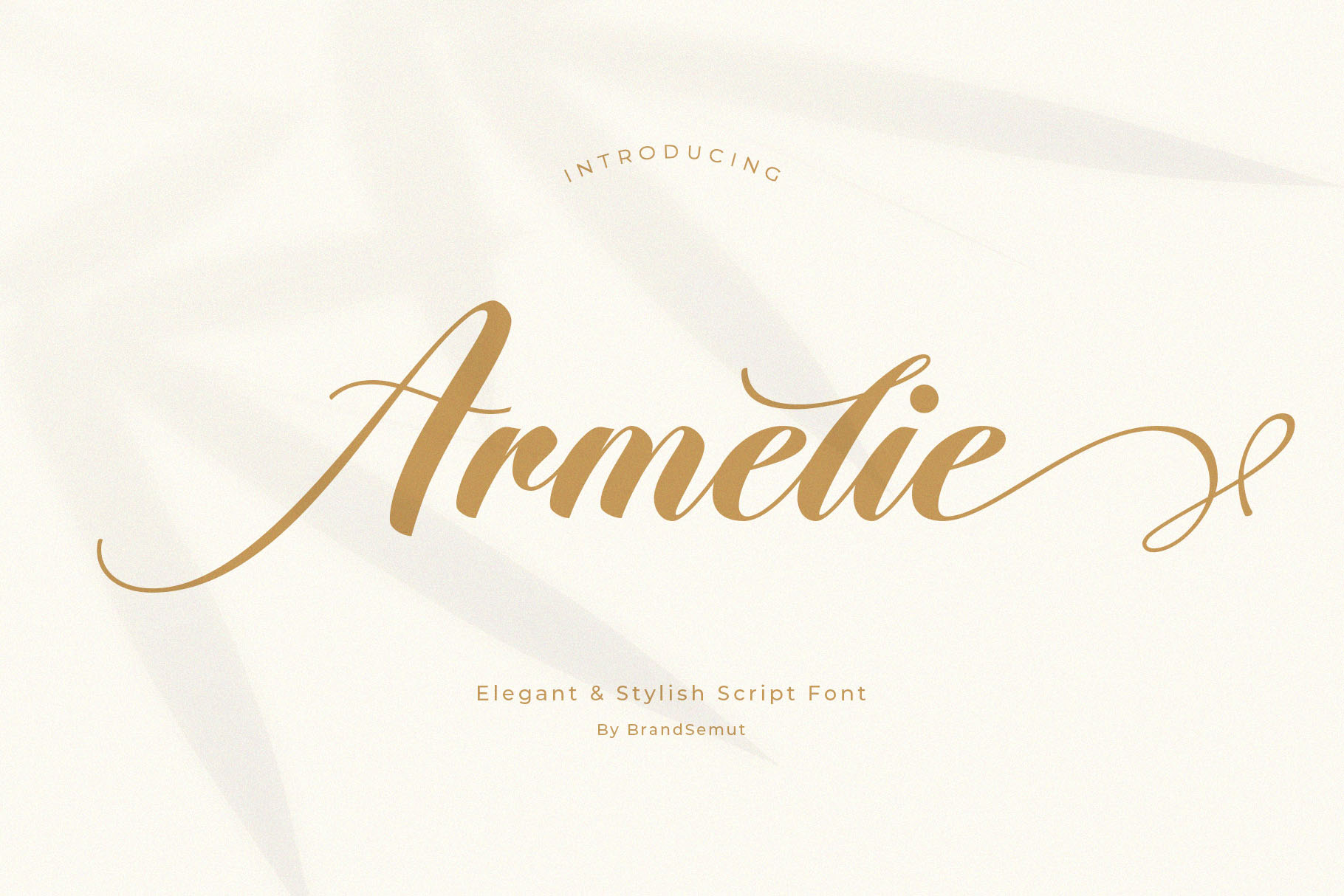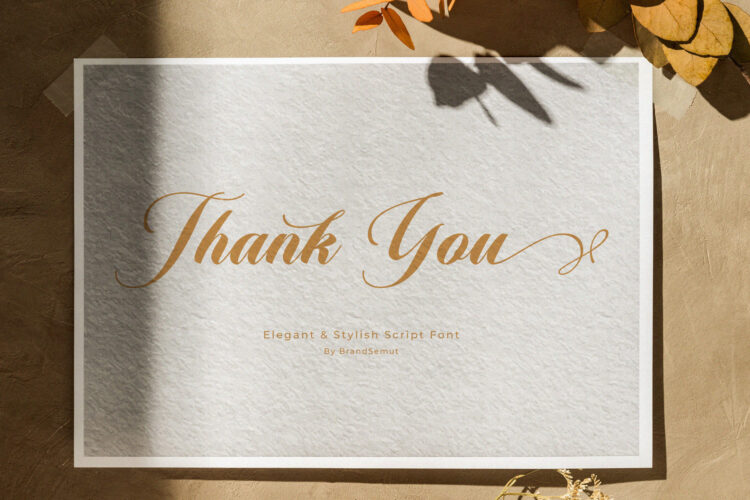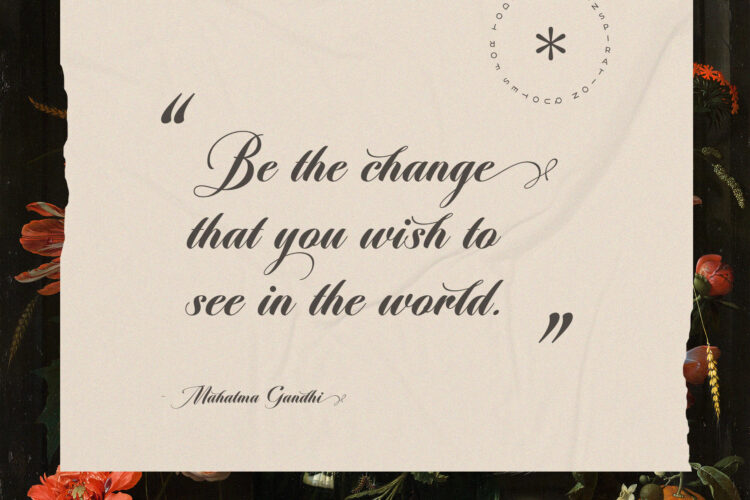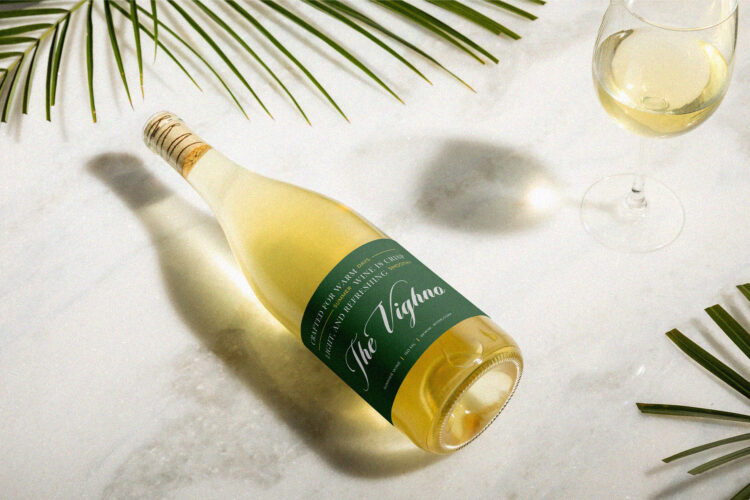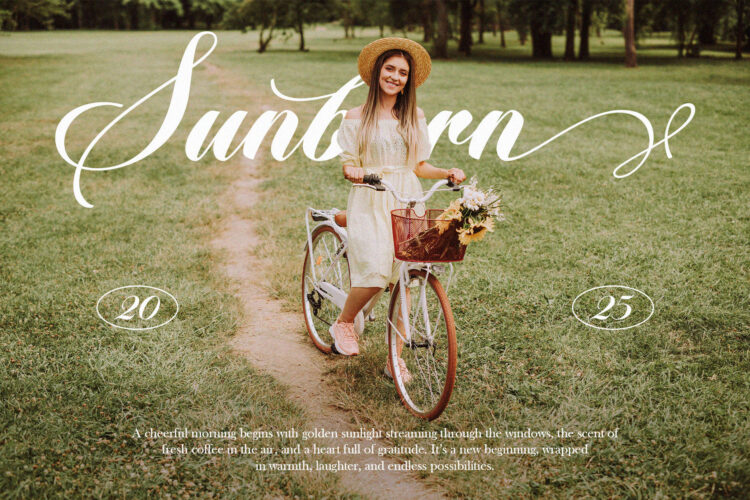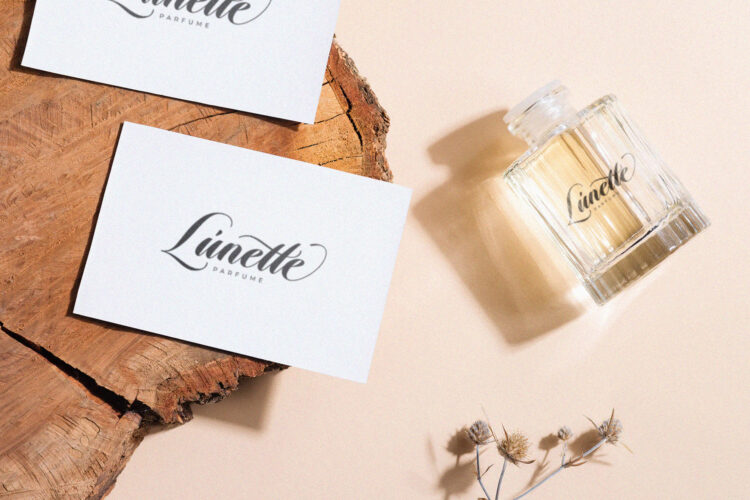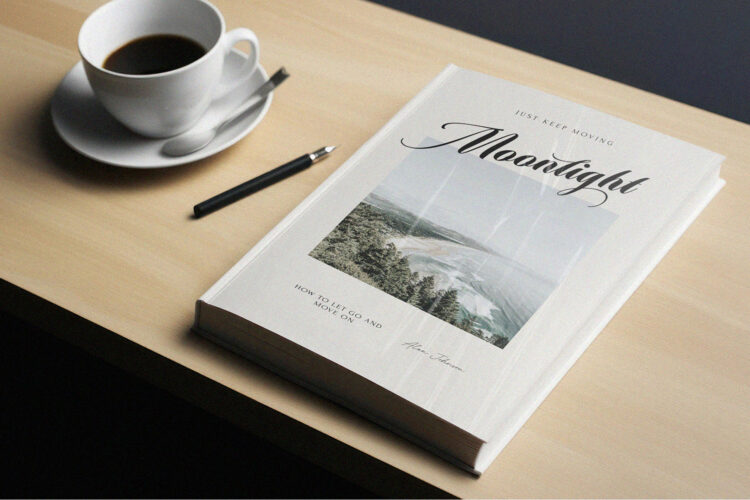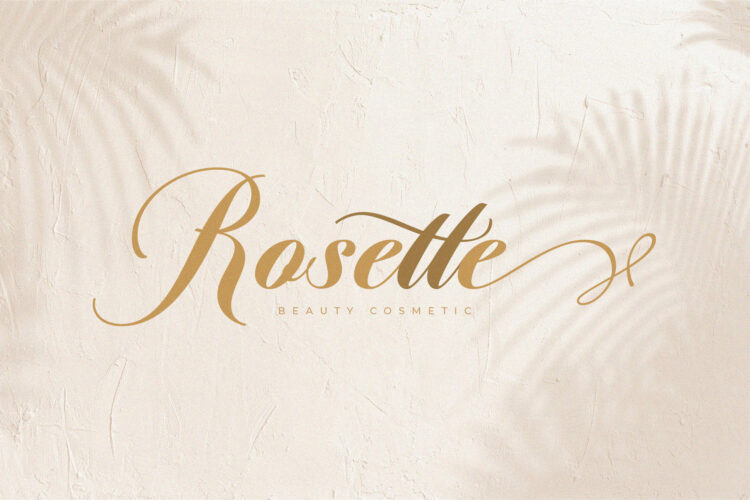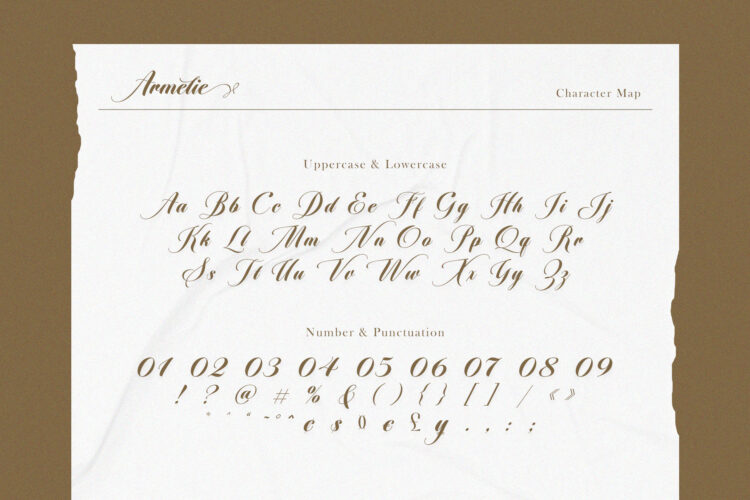
Armelie is an elegant and stylish script font that combines modern sophistication with timeless beauty. Designed with smooth curves, graceful swashes, and refined calligraphy strokes, this font is the perfect choice for projects that require a classy and luxurious handwritten touch.
Whether you are working on branding, wedding stationery, packaging, or editorial design, Armelie adds elegance and personality to your work. Its versatility makes it suitable for both digital and print media, ensuring your designs always look professional and captivating.
– Complete set of uppercase, lowercase, numbers, punctuation
Beautiful ligatures & stylistic alternates for a natural handwritten look
– Branding & Logo Design – Create sophisticated brand identities and premium logos.
– Wedding & Event Stationery – Ideal for invitations, save-the-date cards, and romantic themes.
– Packaging Design – Add a high-end touch to cosmetics, fashion, food, and luxury products.
– Editorial Projects – Stylish typography for magazines, book covers, and blogs.
Social Media & Quotes – Bring elegance to Instagram posts, Pinterest graphics, and marketing visuals.
– Elegant & Versatile – Perfect balance between modern calligraphy and stylish design.
– Professional Quality – Carefully crafted with high attention to detail.
– Timeless Appeal – Suitable for luxury branding, romantic projects, and creative industries.
Armelie is more than just a font—it’s a statement of elegance and creativity. Perfect for designers, entrepreneurs, and creatives who want to elevate their projects with a premium handwritten script font.
Armelie – Elegant & Stylish Script Font